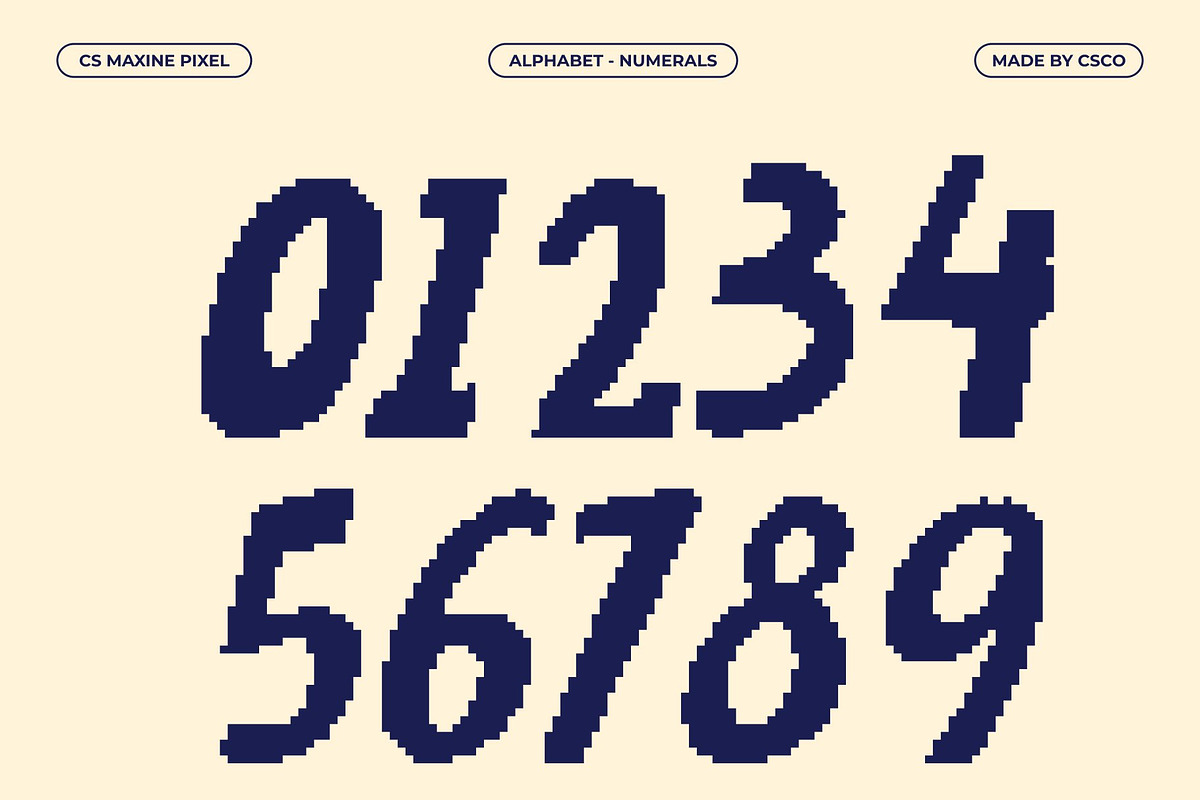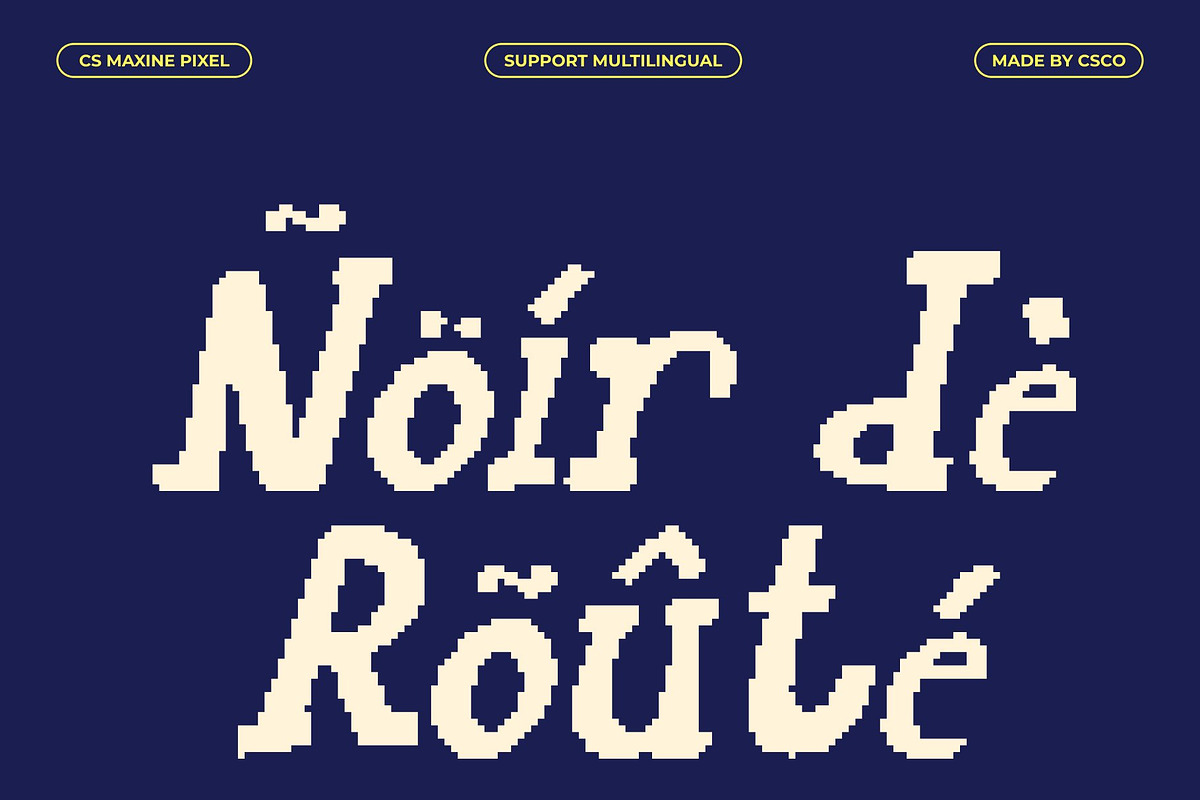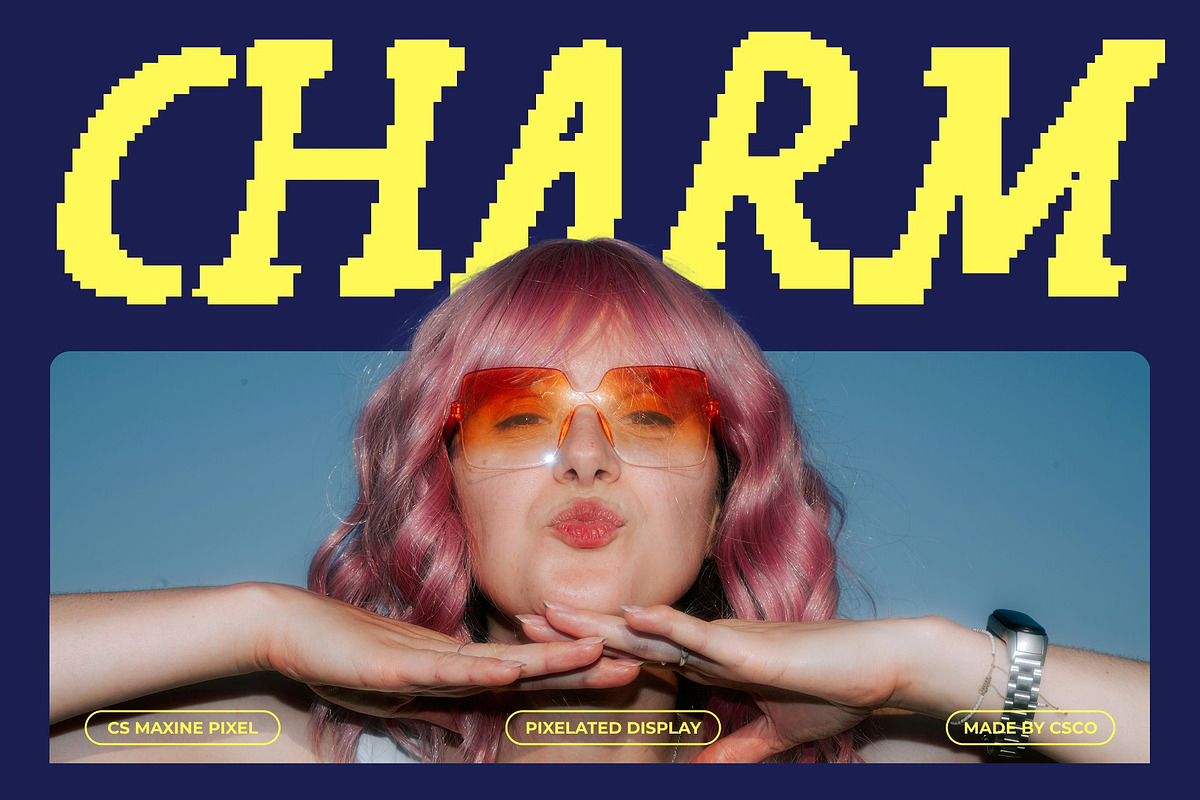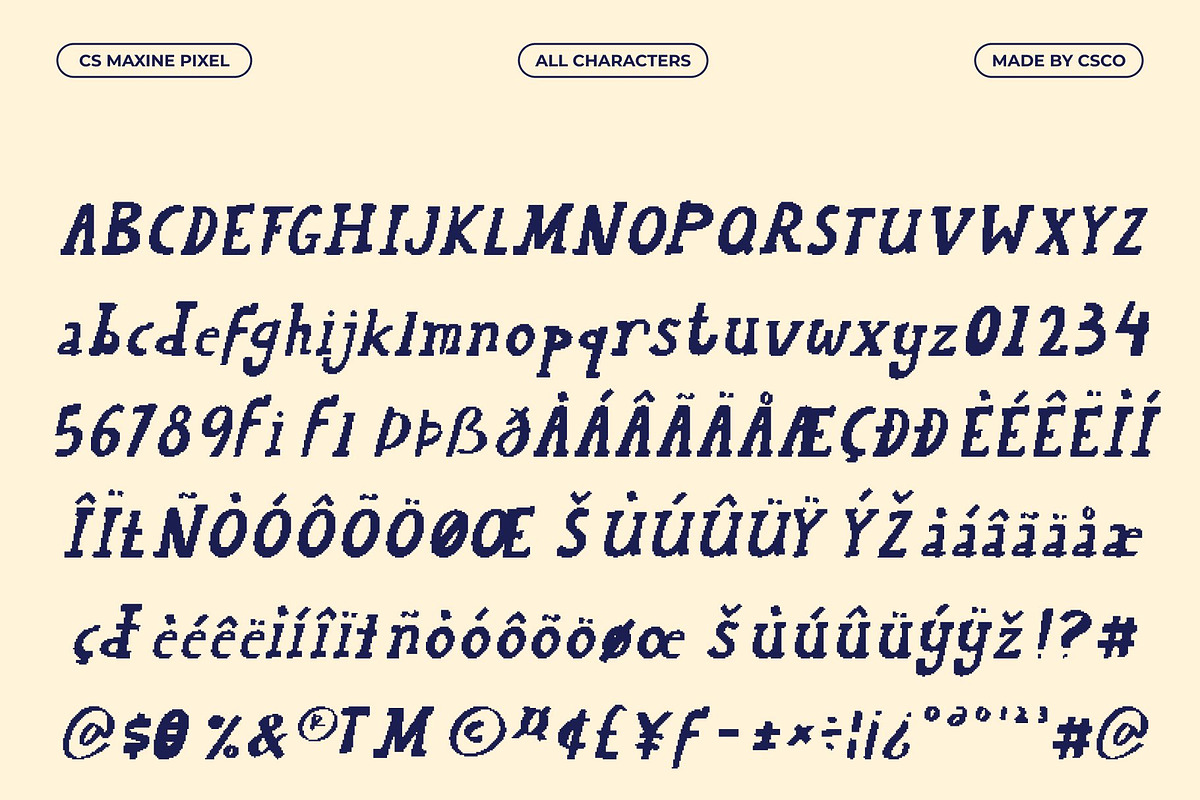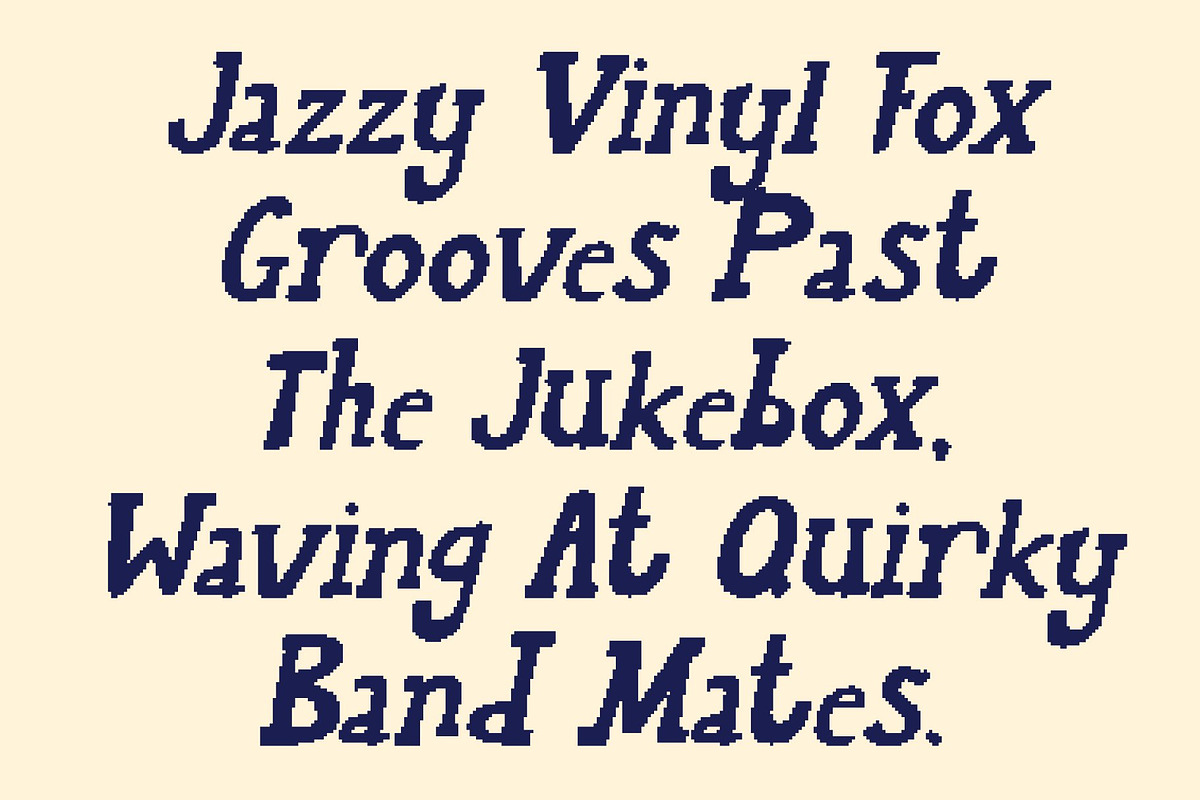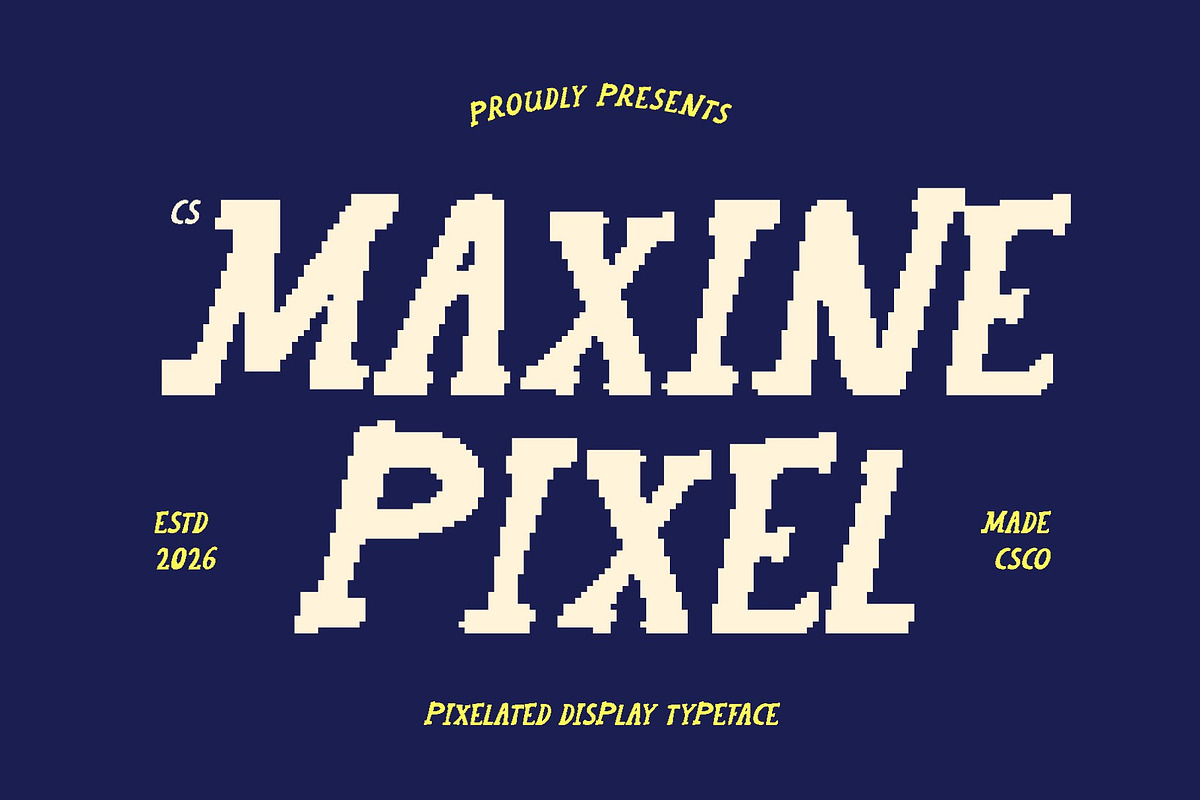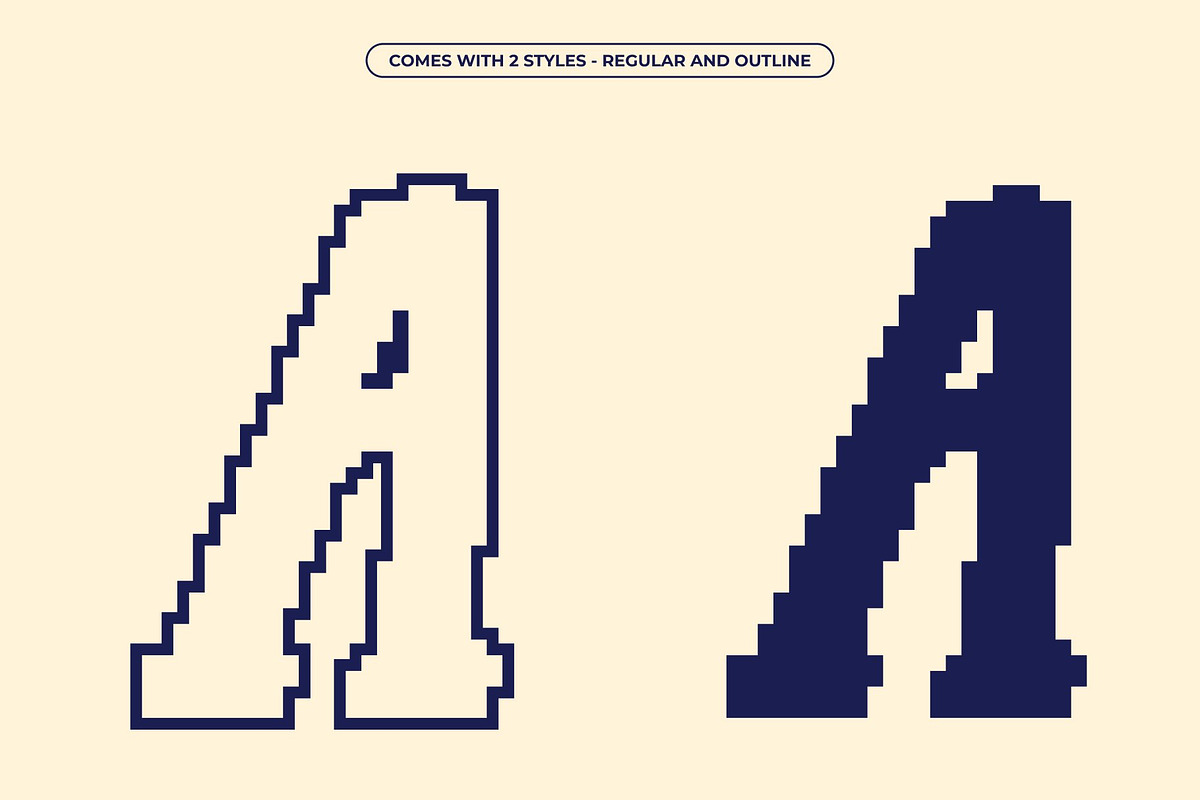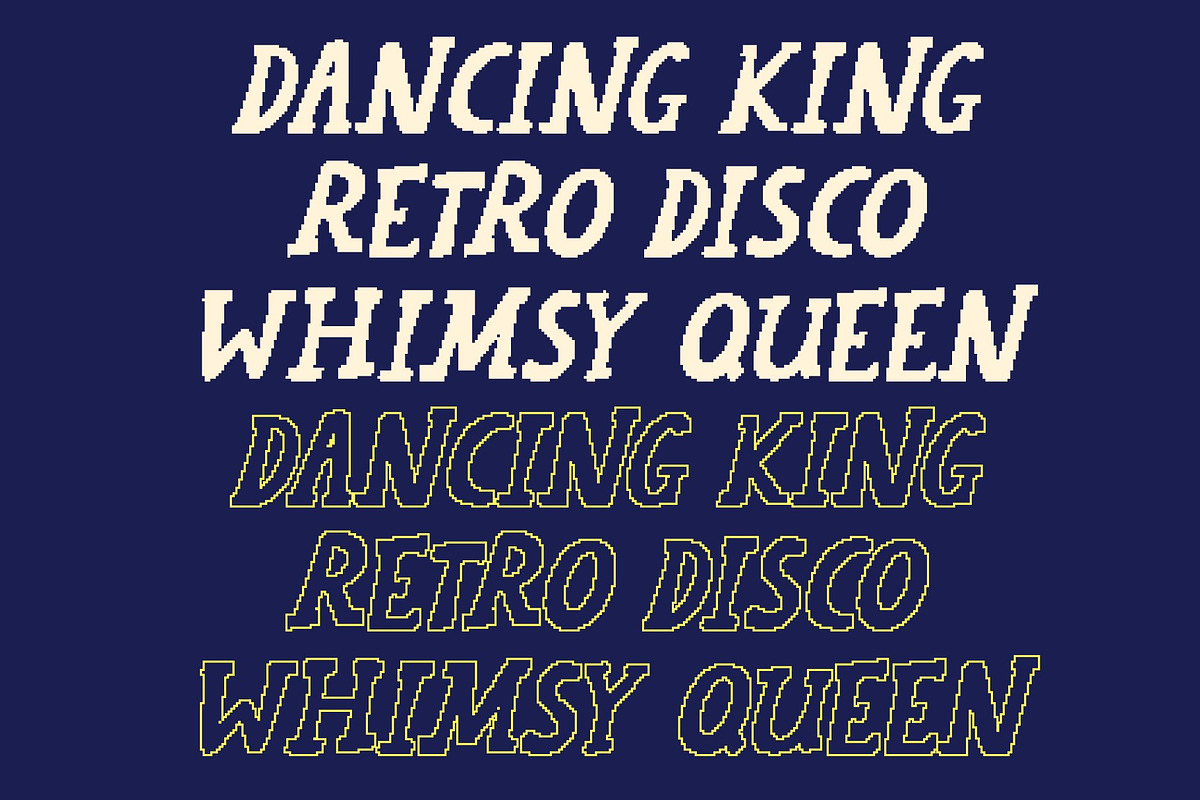
CS Maxine Pixel
CS Maxine Pixel – Playful Slab Serif with Handcrafted Digital Charm
Handwritten Slab Serif with Cheerful Pixel Personality This is a playful slab serif font that blends sturdy serif structure with the warmth of handwritten forms and pixel-inspired detailing. Its naturally drawn texture, combined with digital pixel elements, creates an authentic and friendly feel that makes every word feel lively, expressive, and visually engaging.
Expressive, Funky, and Pixel-Infused Design Organic strokes and subtle irregularities give this font a joyful, upbeat personality, while pixel styling adds a retro-digital twist reminiscent of old screens and early computer graphics. This fusion results in a playful, funky aesthetic that feels handcrafted yet modern.
Friendly Modern Appeal with Digital Character By combining slab serif stability, casual handwritten energy, and pixel accents, this font feels contemporary, approachable, and full of charm. It communicates creativity and friendliness while standing out with its unique digital texture.
Perfect for Titles, Posters, and Creative Digital Projects Ideal for titles, posters, branding, packaging, and creative digital projects, this font shines where personality matters most. Its playful texture and pixel-enhanced forms ensure designs feel fresh, expressive, and memorable perfect for both modern visuals and nostalgic digital themes.